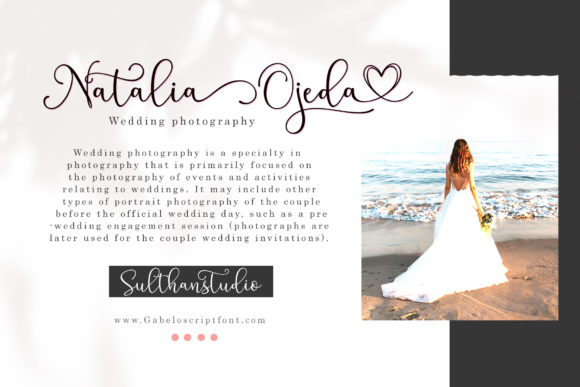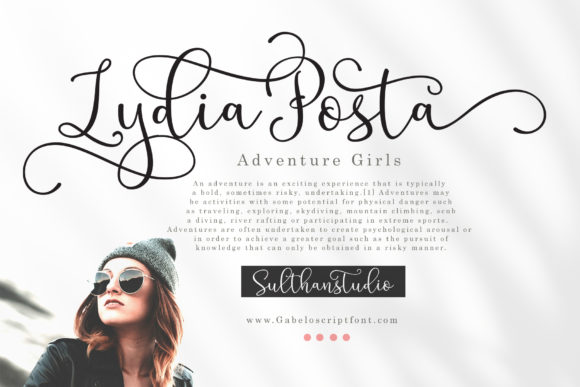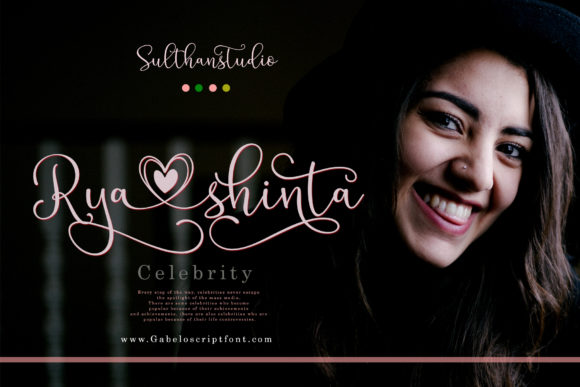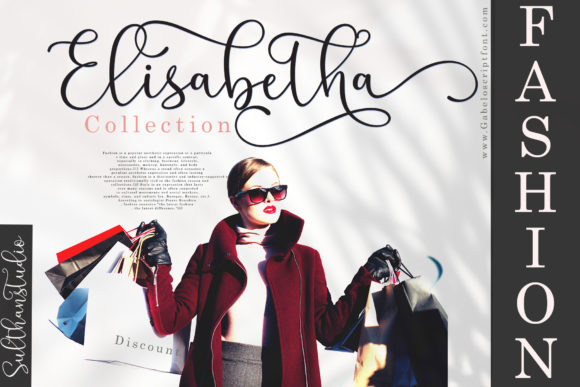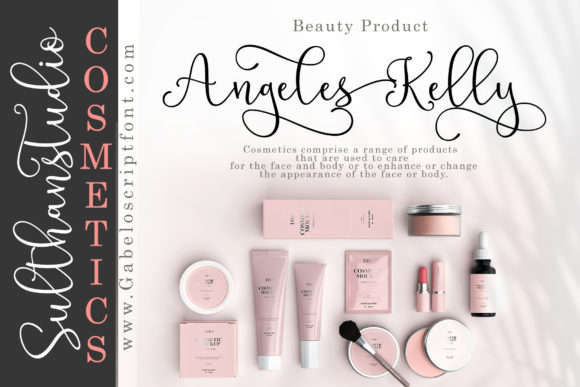
About Gabilo Font
Gabilo is a delicate and elegant handwritten font. Its distinct and well rounded letters make this font a masterpiece. Fall in love with its incredibly versatile style and use it to create spectacular designs!